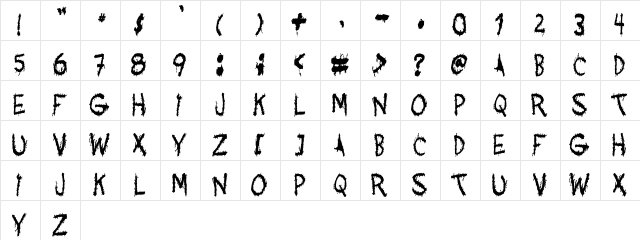
Acquaintance Regular
Design Context for Acquaintance Typeface
Acquaintance is a composed and adaptable typeface that performs quietly and consistently across a wide range of design contexts.
Pro Tip: Use Acquaintance in both headline and body roles to test its range before committing to a single application.